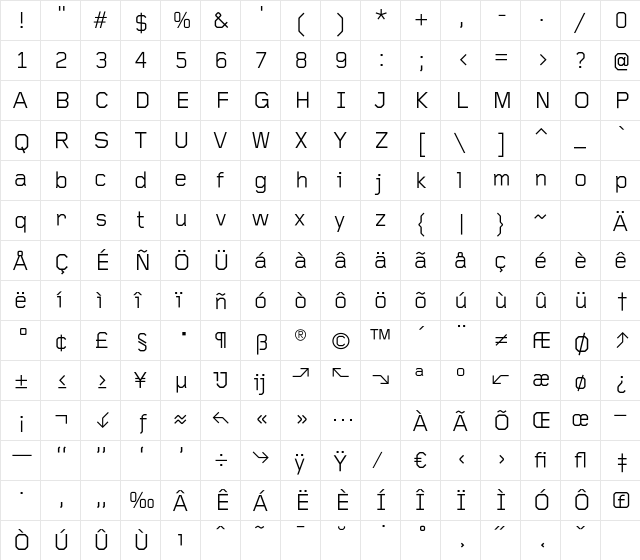
FoundryGridnik Regular
Design Context for FoundryGridnik Typeface
FoundryGridnik takes a measured approach to typography — its balanced proportions and neutral character make it a reliable workhorse for both digital and print work.
Pro Tip: Pair FoundryGridnik with a font of contrasting weight or personality to build a more expressive typographic hierarchy.